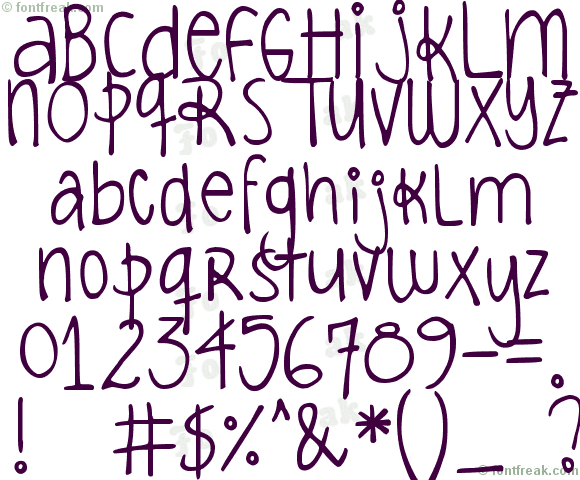
DJB Rubia Tuesday is a delightful handwritten typeface designed by Darcy Baldwin, classified as a script font. Its playful and informal style captures the essence of friendly communication, making it a popular choice for various creative projects. The font features a moderate stroke weight that provides a balanced appearance, with slight contrast between thick and thin lines, enhancing its legibility. The letters are spaced comfortably, ensuring clarity while maintaining a casual vibe. Decorative elements include whimsical curves and loops, which contribute to its charming personality and make it visually engaging.
This versatile font is ideal for a range of applications. It excels in creating wedding invitations, where its romantic and personal touch can elevate the design. Additionally, DJB Rubia Tuesday works beautifully for restaurant menus, offering a warm and inviting feel that aligns with a cozy dining atmosphere. Graphic designers often use it in promotional materials, allowing brands to convey a friendly and approachable image. It is also well-suited for social media graphics, where eye-catching typography can help capture the audience's attention. Content creators will find this font useful for blog headers, giving their posts a unique and inviting look.
Targeting graphic designers, small business owners, and content creators, DJB Rubia Tuesday provides an opportunity to infuse a personal touch into various projects. The font's distinctive style stands out in a crowded marketplace, making it an excellent choice for those looking to make a memorable impression. With DJB Rubia Tuesday font free download available, you can easily incorporate this charming typeface into your next design project, ensuring your work resonates with audiences while maintaining a playful and inviting aesthetic.